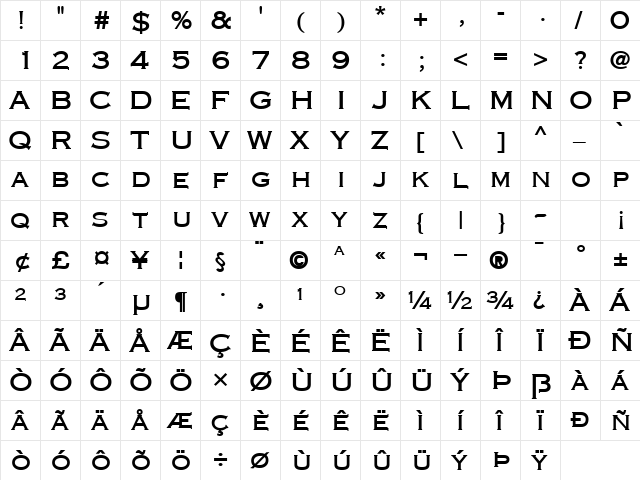
Engraver Bold
Design Context for Engraver Typeface
Engraver offers clean, dependable letterforms without strong stylistic allegiance, making it a practical choice for designers who need flexibility. The heavy weight commands attention and anchors typographic hierarchies.